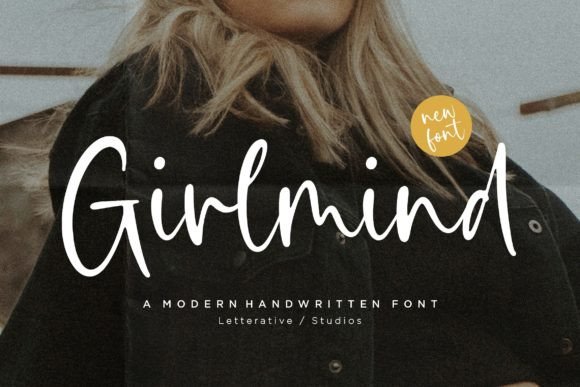
Introducing Girlmind Font: The Ultimate Modern Handwritten Font for Designers and Crafters
In the world of typography, fonts play a crucial role in conveying emotions, setting tone, and creating visual appeal. For designers, crafters, and DIY enthusiasts, finding the perfect font can make all the difference in their creative projects. If you’re on the hunt for a modern handwritten font that can elevate your crafts, digital designs, presentations, and greeting cards, look no further than Girlmind Font.
What is Girlmind Font?
Girlmind Font is a beautiful, modern handwritten font designed to add a touch of personality and whimsy to your creative projects. With its unique blend of elegance and playfulness, this font is perfect for a wide range of applications, from digital designs and presentations to crafts and greeting cards.
Key Features of Girlmind Font
- Modern Handwritten Style: Girlmind Font boasts a fresh, modern handwritten style that’s perfect for designers and crafters looking for a font that’s both trendy and timeless.
- Versatility: Whether you’re working on a digital design, presentation, craft project, or greeting card, Girlmind Font can be used in a variety of contexts to add a personal touch.
- Ease of Use: Girlmind Font is easy to read and works well in both large and small sizes, making it perfect for a wide range of applications.
- Emotional Connection: The handwritten nature of Girlmind Font creates an emotional connection with the reader, making it ideal for projects where you want to convey a sense of personality and warmth.
Why Choose Girlmind Font?
With so many fonts available, why choose Girlmind Font? Here are just a few reasons why this font has the potential to become your go-to font for all your creative projects:
- Unique Style: Girlmind Font has a unique style that’s both modern and elegant, making it perfect for designers and crafters who want to stand out from the crowd.
- Time-Saving: With Girlmind Font, you can save time and effort by using a pre-designed font that’s ready to use, rather than creating your own handwritten font from scratch.
- Consistency: Using a consistent font throughout your project can help to create a cohesive look and feel, and Girlmind Font is perfect for achieving this.
Use Cases for Girlmind Font
So, how can you use Girlmind Font in your creative projects? Here are just a few ideas to get you started:
- Crafts: Add a personal touch to your craft projects, such as scrapbooking, journaling, and card making, with Girlmind Font.
- Digital Design: Use Girlmind Font in your digital designs, such as social media graphics, blog posts, and website headers, to add a touch of personality and whimsy.
- Presentations: Elevate your presentations with Girlmind Font, which can add a touch of elegance and sophistication to your slides.
- Greeting Cards: Create beautiful, handmade-style greeting cards with Girlmind Font, perfect for special occasions such as birthdays, weddings, and holidays.
| Font Name | Girlmind Font |
| Author | letterativestudio |